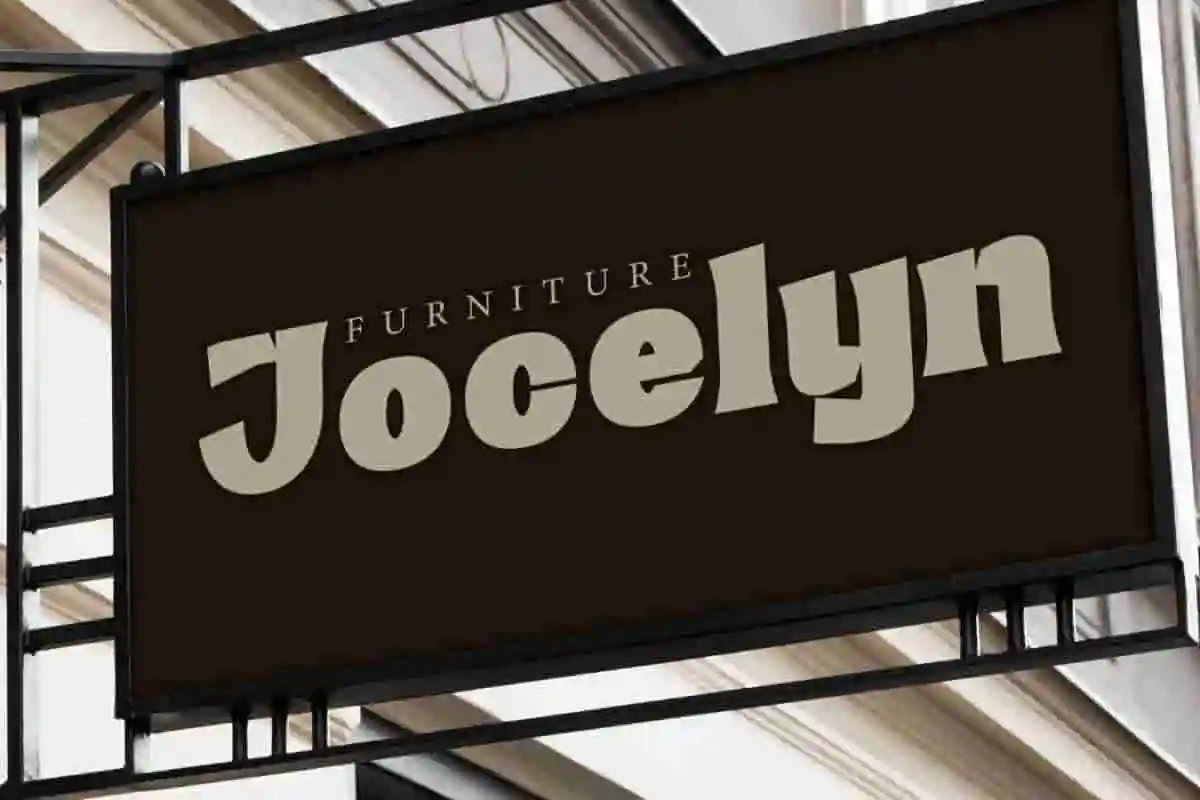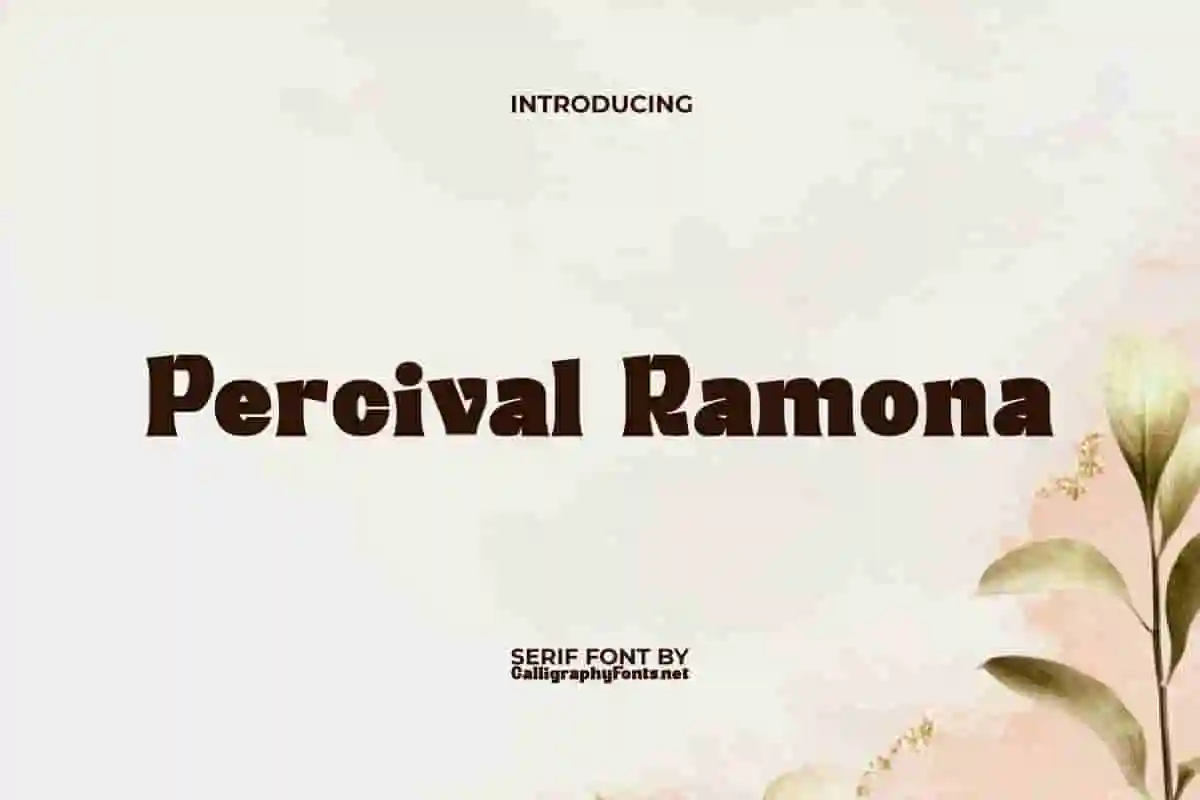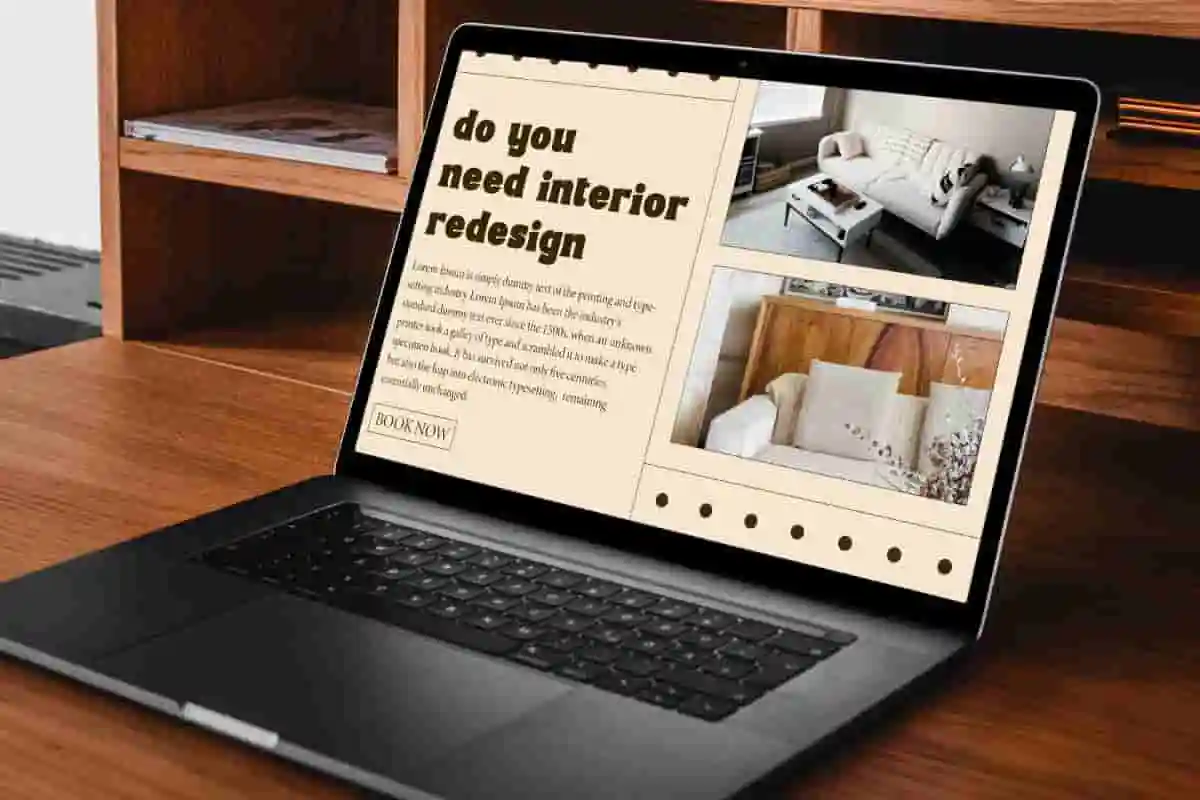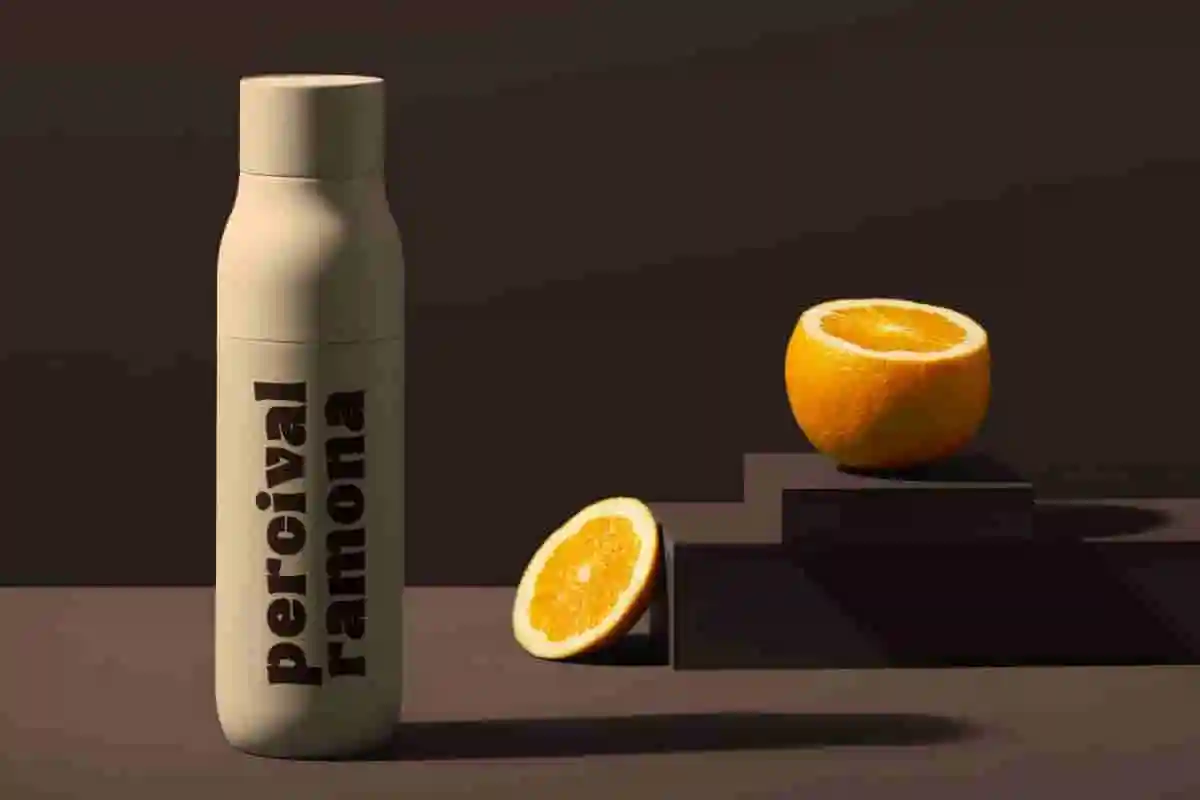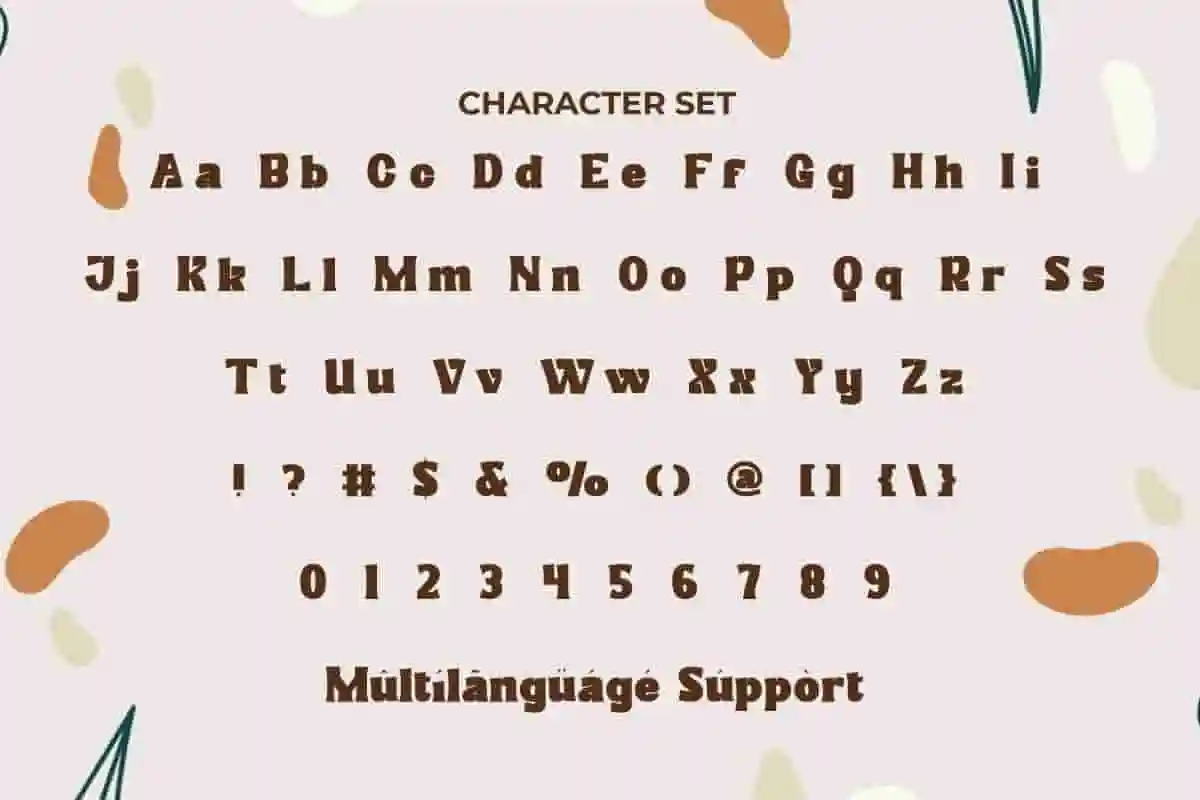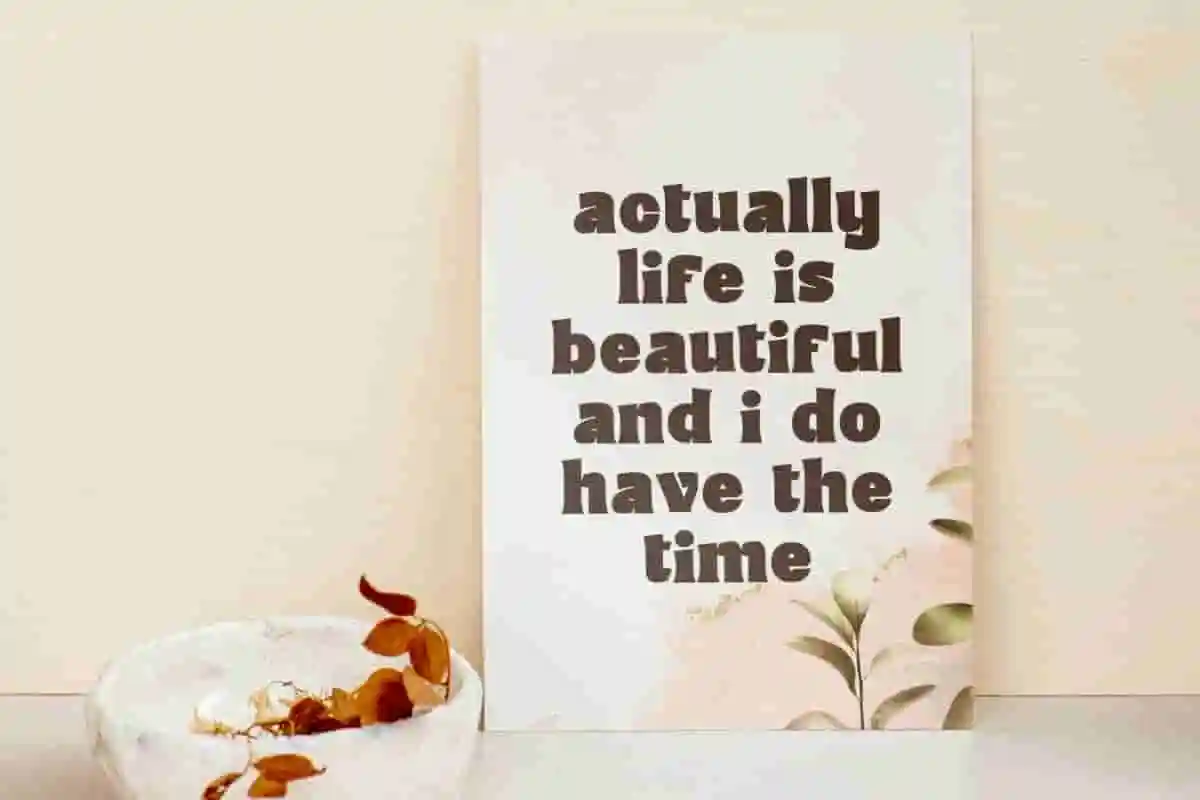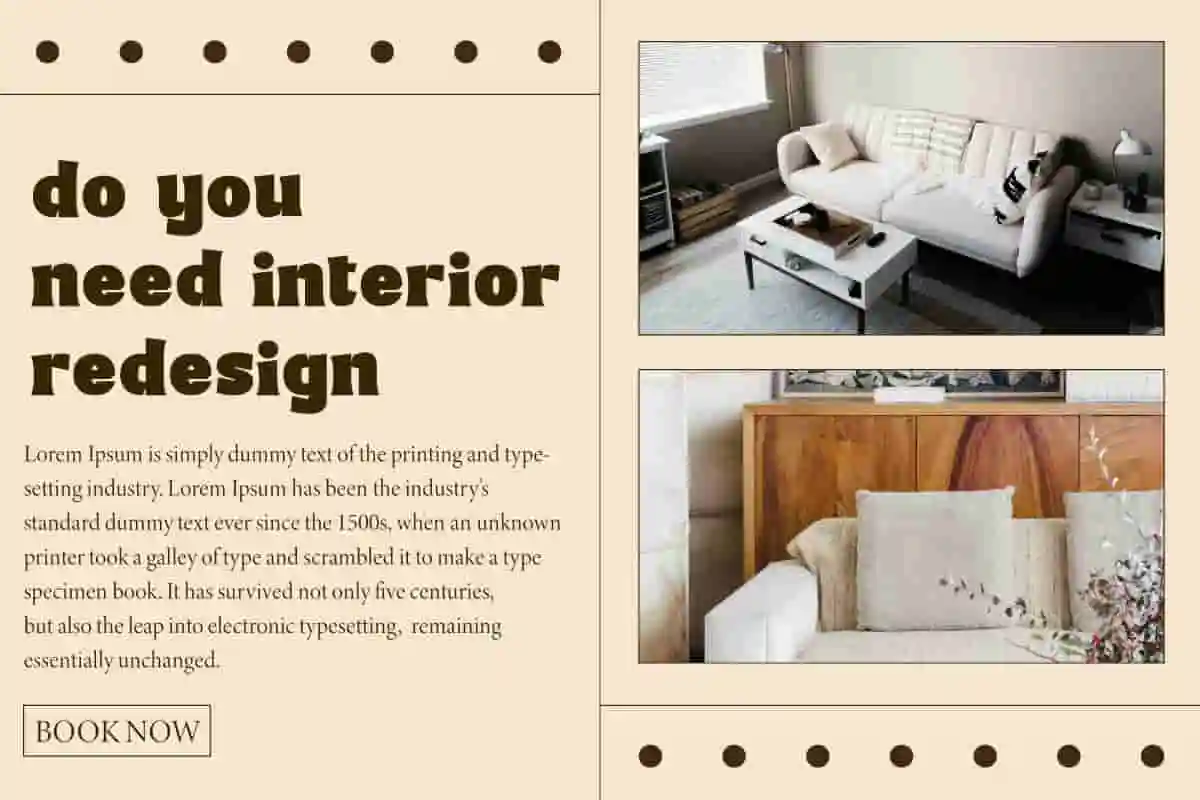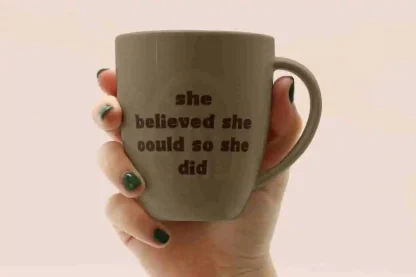
Percival Ramona Display Font
Percival Ramona Font is a bold display type in serif style. If you want a fairly contemporary vintage look in your design. Perfect for flyer, furniture, heading, home designer, mugs, packaging, signage, web, etc.
Percival Ramona Font is an awesome modern retro serif look. Its unique and charming character will help you give a completely different feel to your project. It will be the best choice for apps, blogs, brand logo, cover designs, custom mugs, headers, heading, headline, invitation, mockup, print materials, poster, product packaging, quotes, signage, stationery, sticker, template, title, website, and more.
Introducing Percival Ramona Display Font, a modern and elegant display font designed to make your creative projects stand out with style and sophistication. Whether you’re crafting logos, headlines, posters, packaging, or branding materials, this font brings a timeless, refined look that captures attention effortlessly. With clean lines and unique character shapes, Percival Ramona offers versatility and charm, perfect for designers, artists, and entrepreneurs who want their work to feel polished and professional.
Elevate your creative projects with Percival Ramona Display Font, a sophisticated and stylish display font designed to give your designs a strong, memorable presence. Perfect for branding, headlines, posters, packaging, and editorial use, this font combines modern aesthetics with timeless elegance. Crafted with sharp, clean lines and unique letterforms, Percival Ramona brings a refined yet bold character to your typography.
Make your designs truly unforgettable with Percival Ramona Display Font, a modern and elegant display typeface crafted to bring sophistication and style to every project. Whether you’re designing a logo, crafting eye-catching headlines, creating luxury packaging, or building a strong brand identity, this font offers the perfect blend of boldness and refinement.
• Crisp and clean design
• Supports multilingual characters
Percival Ramona Font is a quirky chunky serif font that is perfectly crafted in a friendly and warm feel to make your text look much more appealing. Get this font now and let your design creativity flow! This will be the best option for advertising, architect, corporate, event organizer, graphic design, handicraft, home furniture, interior design, photography, printing, publishing, water bottle brands, web designers, and more.